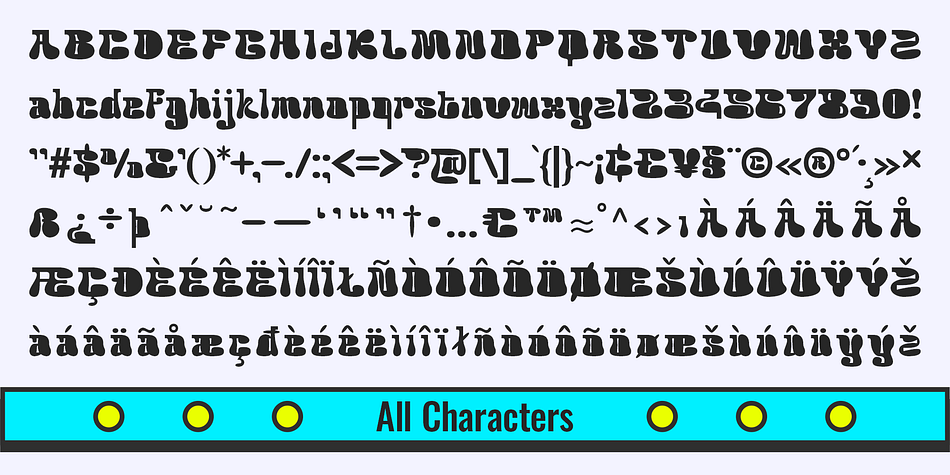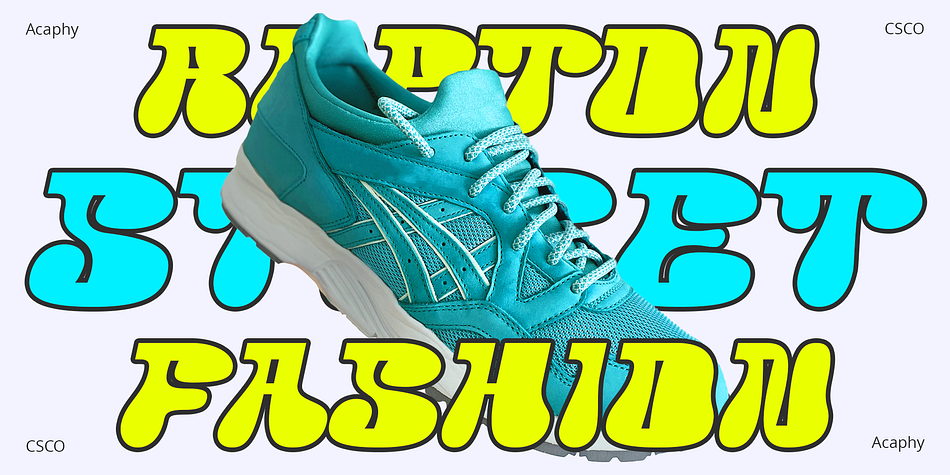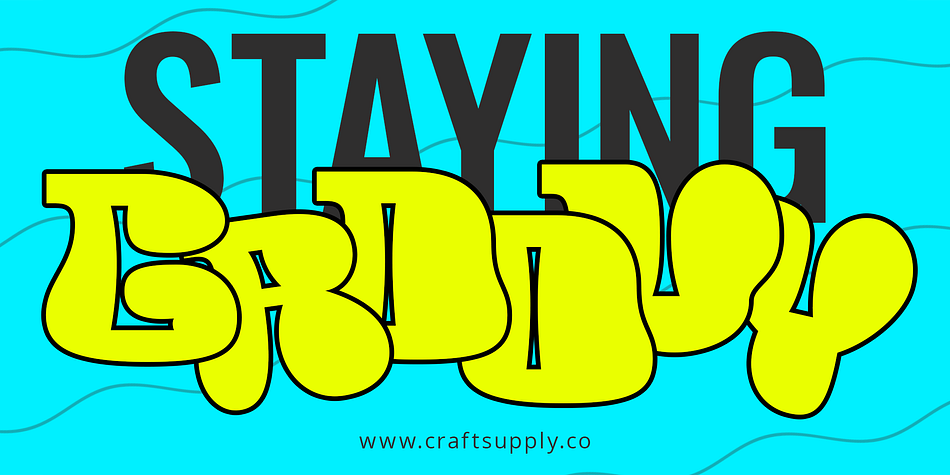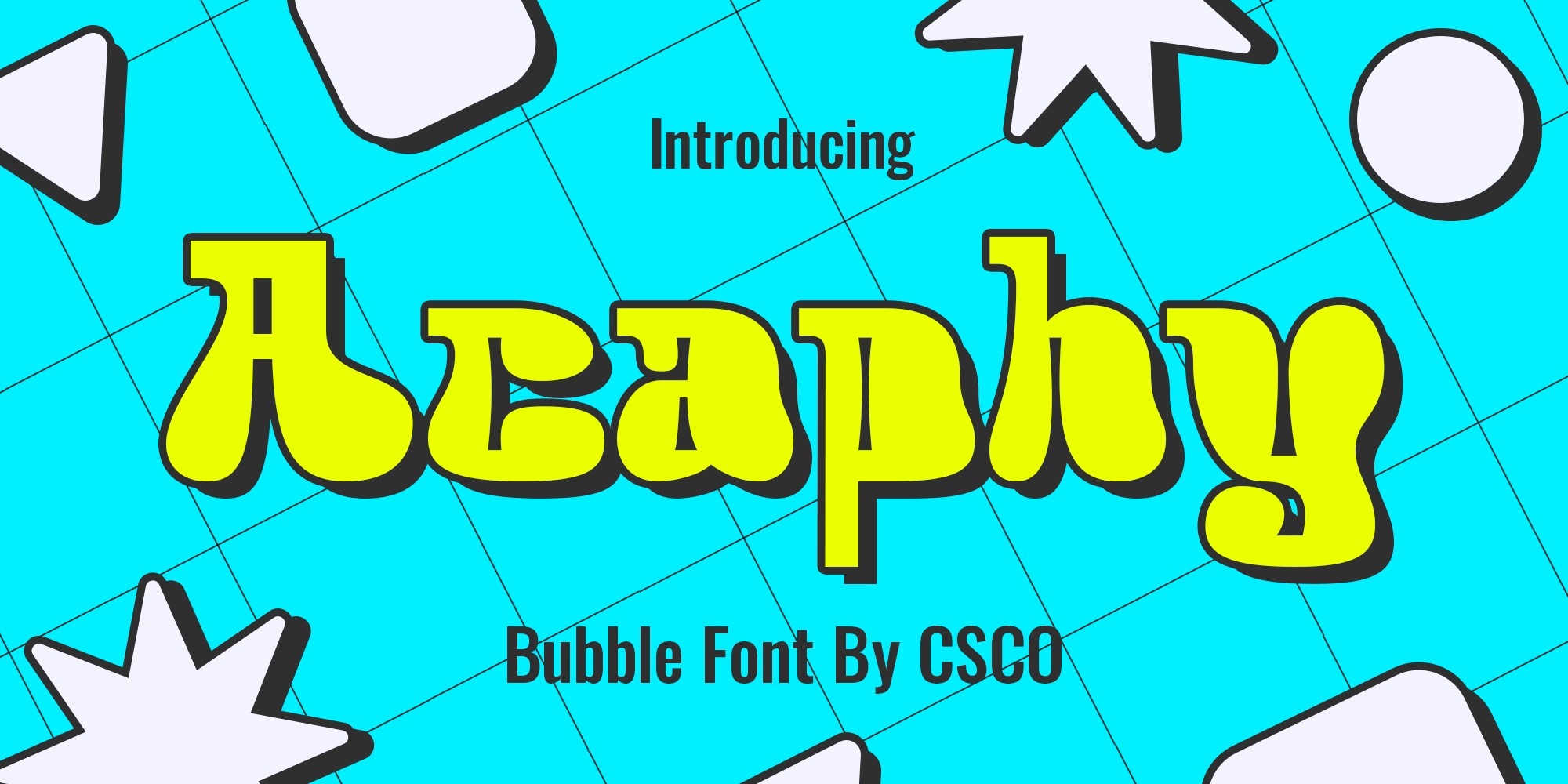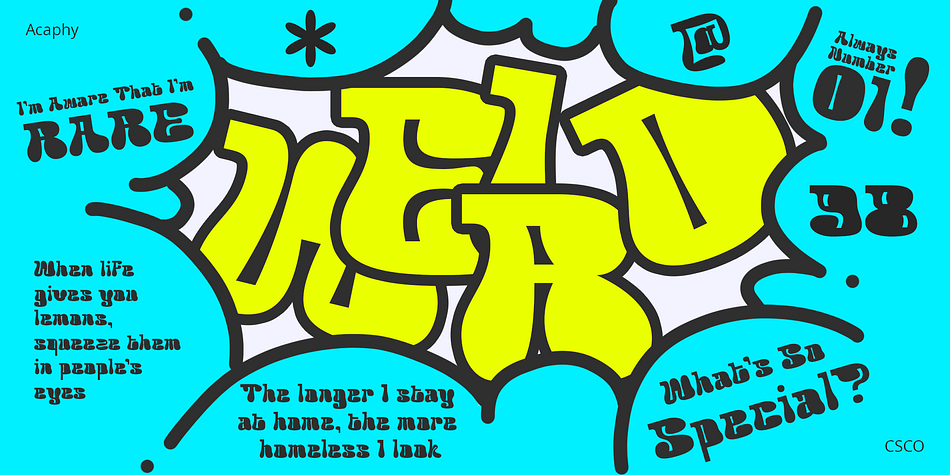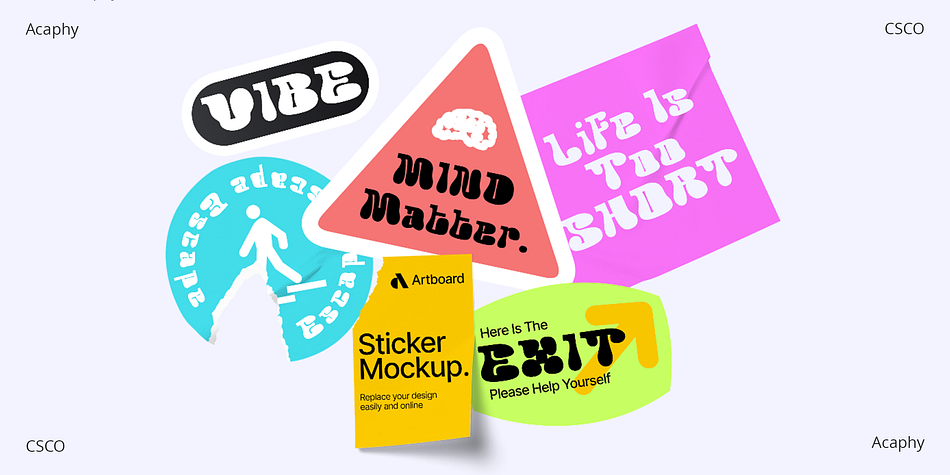
Acaphy
Acaphy is a retro font family. This typeface has two styles and was published by Craft Supply Co.
Introducing Acaphy – Bubble Font: Fun and Playful Typography for Kids
Playful and Vibrant
Looking for a font that radiates fun and playfulness for your kids’ themed projects? Acaphy – Bubble Font is your ideal choice! With its bubbly and rounded characters, it instantly infuses joy and excitement into your display.
Clear and Readable
Acaphy – Bubble Font ensures easy readability, making it perfect for young readers. Its simple letterforms help children recognize and understand text effortlessly. Whether it’s educational materials, invitations, or posters, this font does the job brilliantly.
Versatile Usage
This font adapts seamlessly to various applications. From website headers to classroom materials, from animated content to packaging, Acaphy – Bubble Font is a versatile addition to your design toolbox.
Bubble-Themed Delight
Acaphy – Bubble Font captures the essence of childhood fun. Its bubble-inspired design evokes memories of blowing bubbles on sunny days, connecting your design to the carefree happiness of youth.